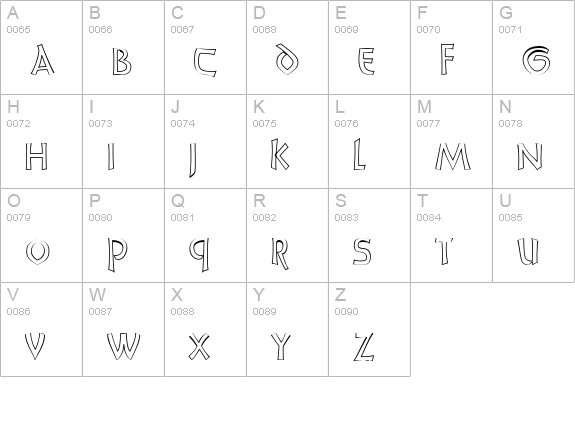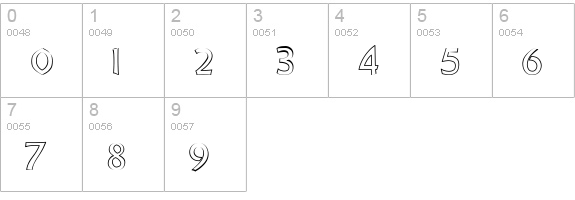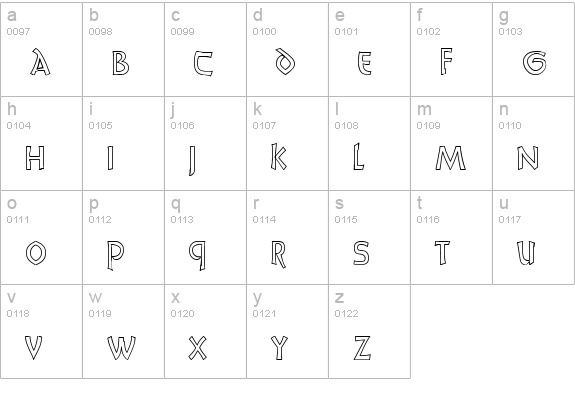
UnciaDis-Hollow Normal is the standard, neutral variant in the UnciaDis typeface family \xE2\x80\x94 well suited to general body text, paragraphs, and standard typographic work.
UnciaDis-Hollow Normal font is an exquisite display typeface that effortlessly combines elegance with a touch of whimsy. Its intricate and beautifully crafted letterforms are reminiscent of calligraphy, adding a touch of sophistication to any design project. This font is perfect for creating eye-catching headlines, logos, invitations, and more. Its unique hollow design gives it a distinct and modern look, making it a popular choice for designers looking to make a bold statement. One of the best things about UnciaDis-Hollow Normal font is that it is freely available to download at FontsMarket.com. This means that you can enjoy the beauty and versatility of this font without any cost or restrictions. Whether you are a professional graphic designer or a creative enthusiast, this font is sure to elevate your designs and captivate your audience. With its wide range of international characters and symbols, UnciaDis-Hollow Normal font offers flexibility and versatility, allowing you to create stunning visuals in various languages and contexts. Its clean lines and balanced proportions make it readable and appealing, ensuring that your message is conveyed effectively. Whether you are designing a website, crafting a print advertisement, or working on a branding project, UnciaDis-Hollow Normal font is the perfect choice to add a touch of elegance and creativity. Download this font today from FontsMarket.com and unlock a world of possibilities for your design projects.